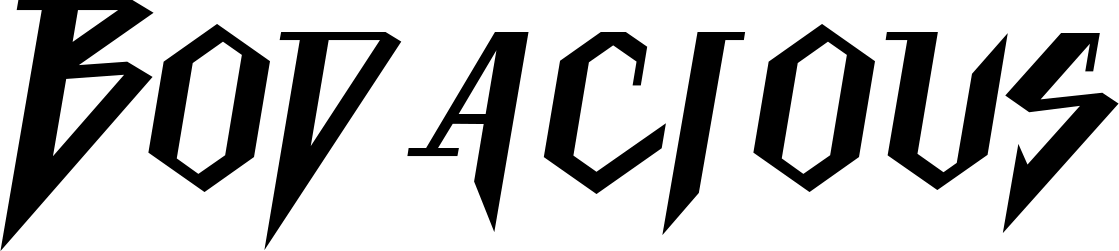
Bodacious Font
With sharp and peculiar elements being part of its charm, Bodacious features trendy vibes that once applied to a text will definitely take it to a whole other level. We bet you’ll find this 80s-cyberpunk font useful in designing Halloween posters, books, website graphics, etc.
Just note that there’s no lowercase edition among the variations this cyberpunk font has to offer, only the capitals on a smaller scale to make up for the lack of lowercase while maintaining the same expressive look.